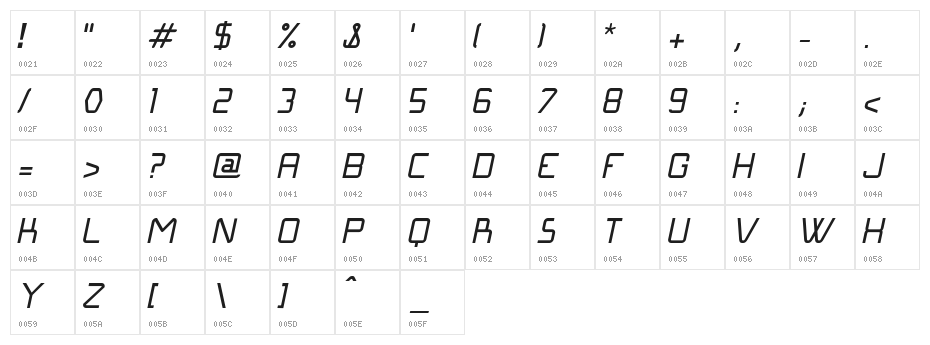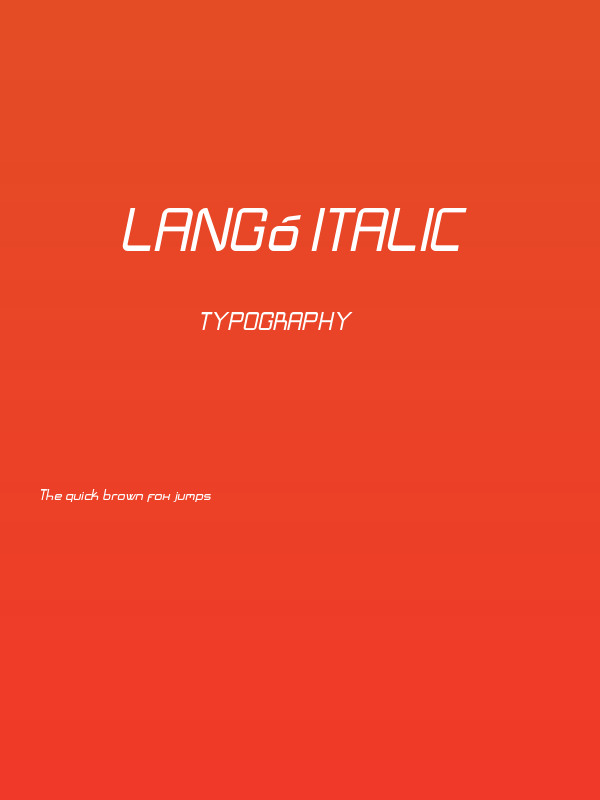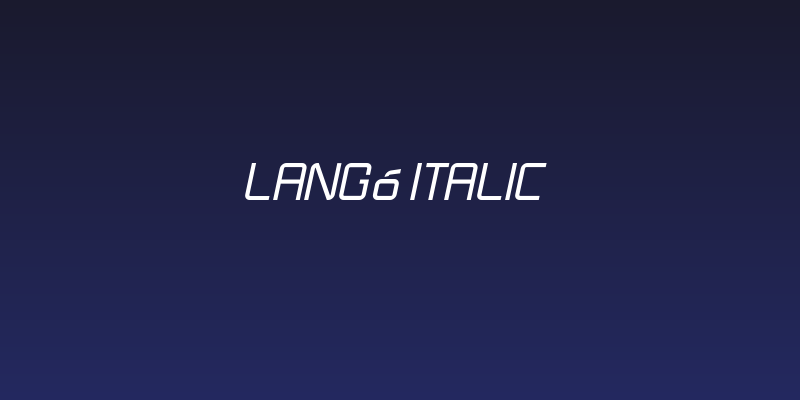
Langó Italic Font
Langó Italic Description
This font features a sleek, italicized design with a modern and futuristic appeal. The characters are slightly slanted, giving a sense of motion and dynamism. The strokes are consistent in width, providing a uniform appearance across all letters and numbers. The uppercase letters are tall and narrow, while the lowercase letters maintain a similar style with a slightly more compact form. The numerals are clear and easy to read, matching the overall aesthetic of the alphabet. Special characters are included, maintaining the same stylistic elements, ensuring versatility in various applications.
| Proposed Projects | Ideal for technology branding, modern advertising, and futuristic design projects. |